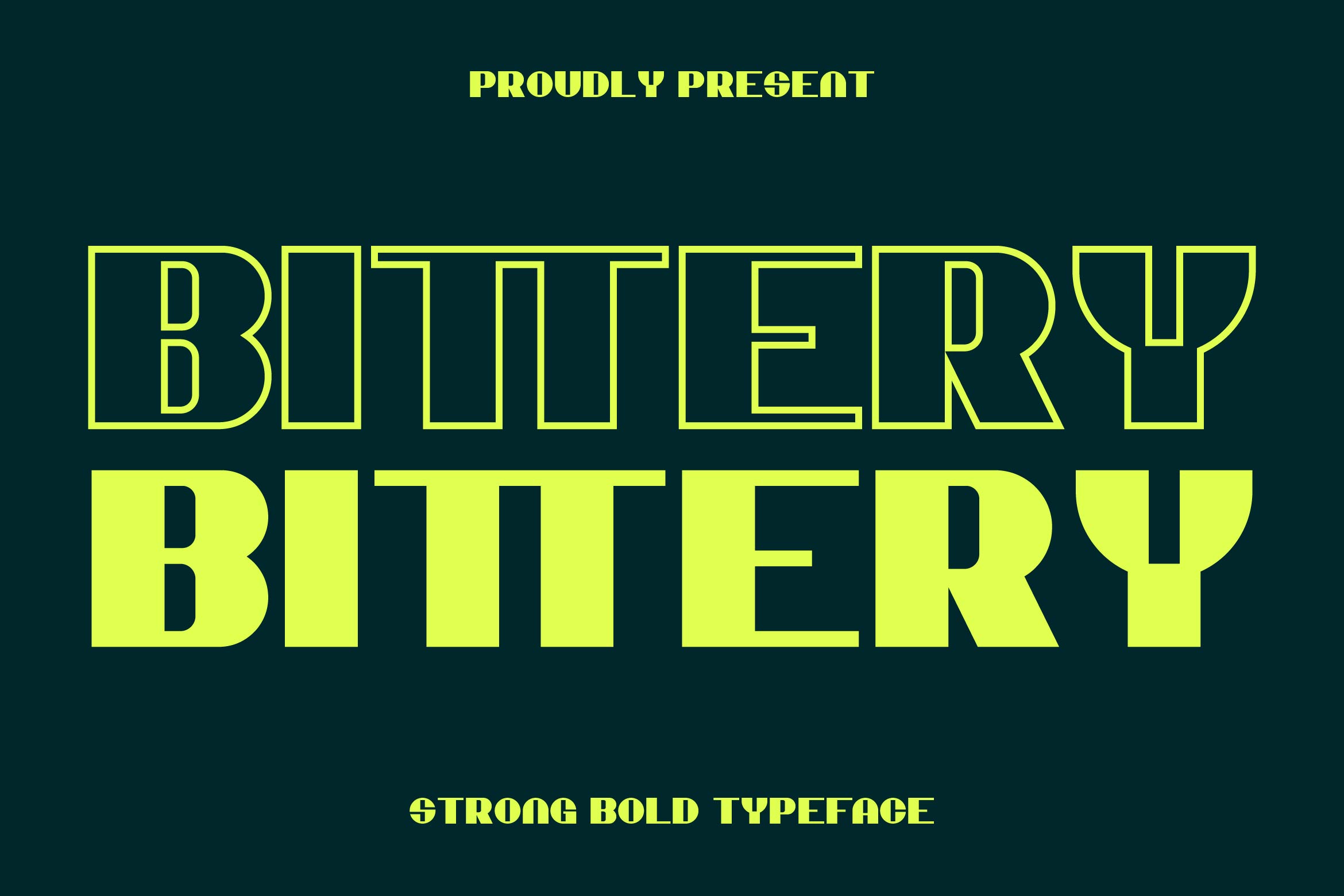
Bittery is a striking sans serif font designed to bring power, clarity, and modern sophistication to your typography. With its thick, well-defined strokes, sharp geometry, and clean proportions, Bittery is perfect for impactful headlines, logo design, posters, sports graphics, product packaging, and high-energy branding projects.
Its bold structure ensures excellent readability across various sizes, making it ideal for both print and digital media. Bittery is a versatile choice for designers seeking a typeface that conveys confidence, strength, and a contemporary edge in every project.
The font includes uppercase and lowercase letters, numerals, punctuation, multilingual support, and stylistic alternates for enhanced customization and design flexibility.
Make a statement with Bittery — the bold sans serif font that combines modern precision, strong aesthetics, and timeless appeal.